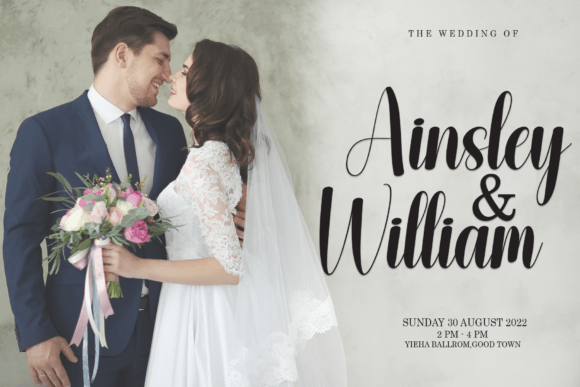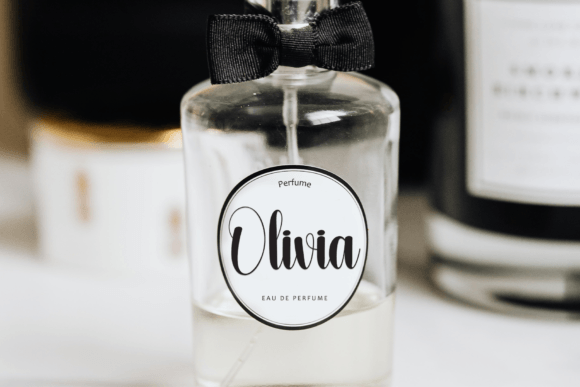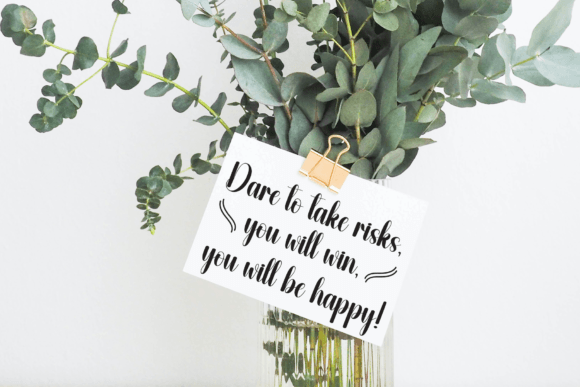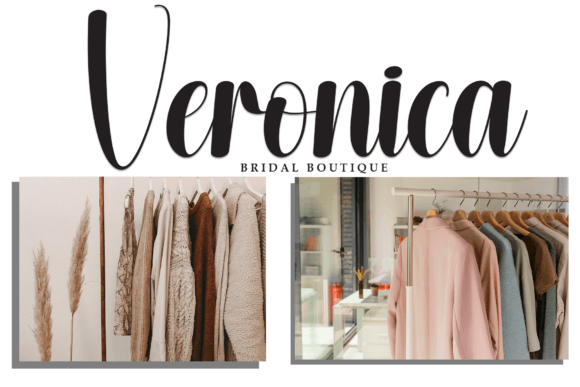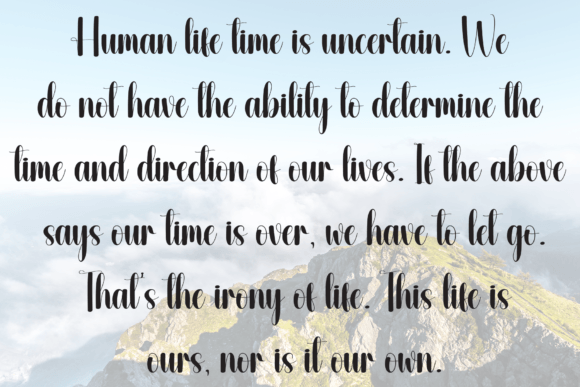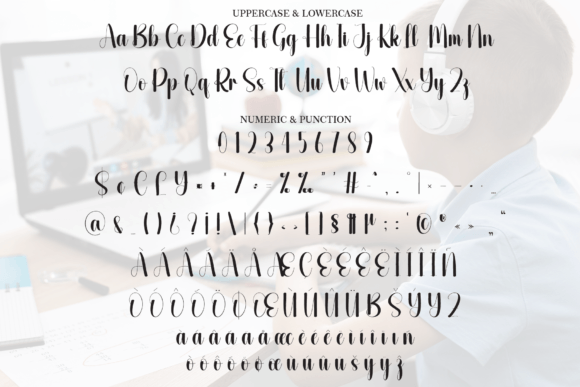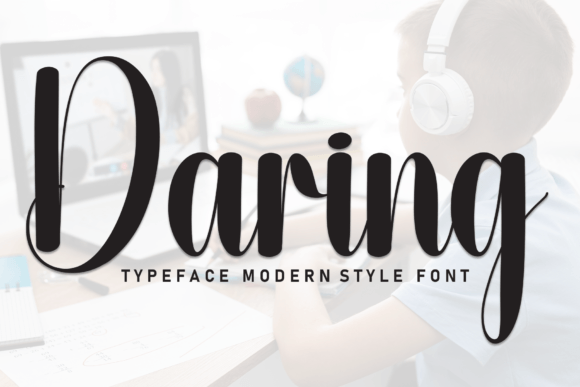
Daring Font: The Sweet and Friendly Handwritten Font for Your Creative Projects
Are you a designer or crafter looking for a font that can add a touch of sweetness and friendliness to your creative projects? Look no further than Daring Font! This beautiful handwritten font is perfect for writing wedding invitations, cards, or any other design that might need a lovely touch. In this article, we’ll explore the features and benefits of Daring Font, and show you how to use it to take your designs to the next level.
What is Daring Font?
Daring Font is a sweet and friendly handwritten font that is designed to bring a touch of warmth and personality to your designs. With its cute and fun style, this font is ideal for creating beautiful wedding invitations, birthday cards, and other celebratory designs. Whether you’re a professional designer or a crafty DIY enthusiast, Daring Font is the perfect choice for adding a personal touch to your projects.
Features of Daring Font
So, what makes Daring Font so special? Here are just a few of its key features:
- Handwritten style: Daring Font has a beautiful, handwritten style that gives it a personal and unique feel.
- Sweet and friendly: This font is designed to be sweet and friendly, making it perfect for creating designs that are warm and inviting.
- Cute and fun: With its playful and whimsical style, Daring Font is ideal for creating designs that are fun and celebratory.
- Versatile: This font can be used for a wide range of design projects, from wedding invitations and cards to posters and social media graphics.
Benefits of Using Daring Font
So, why should you choose Daring Font for your design projects? Here are just a few of the benefits of using this beautiful font:
- Adds a personal touch: With its handwritten style, Daring Font adds a personal touch to your designs that can help them stand out.
- Creates a warm and inviting feel: This font is designed to be sweet and friendly, making it perfect for creating designs that are warm and inviting.
- Perfect for celebratory designs: Whether you’re creating a wedding invitation or a birthday card, Daring Font is the perfect choice for adding a touch of celebration to your designs.
Design Ideas Using Daring Font
Now that you know how to use Daring Font, here are some design ideas to get you started:
- Wedding invitations: Use Daring Font to create beautiful and personalized wedding invitations that will set the tone for your special day.
- Birthday cards: Create fun and celebratory birthday cards using Daring Font and add a personal touch to your gift-giving.
- Posters and flyers: Use Daring Font to create eye-catching posters and flyers for events, sales, and promotions.
- Social media graphics: Add a personal touch to your social media graphics using Daring Font and make your posts stand out.
In conclusion, Daring Font is a sweet and friendly handwritten font that is perfect for adding a touch of warmth and personality to your design projects. With its cute and fun style, this font is ideal for creating beautiful wedding invitations, cards, and other celebratory designs. Whether you’re a professional designer or a crafty DIY enthusiast, Daring Font is the perfect choice for taking your designs to the next level. So why wait? Download Daring Font today and start creating your own beautiful designs!